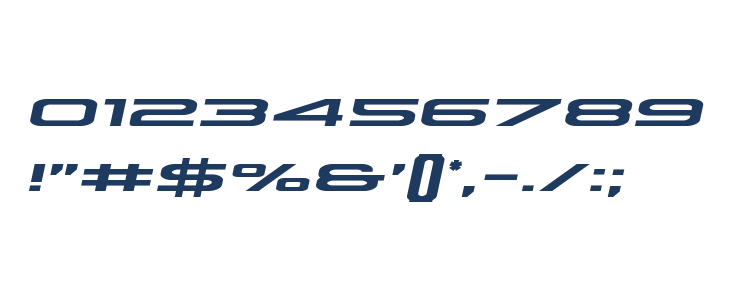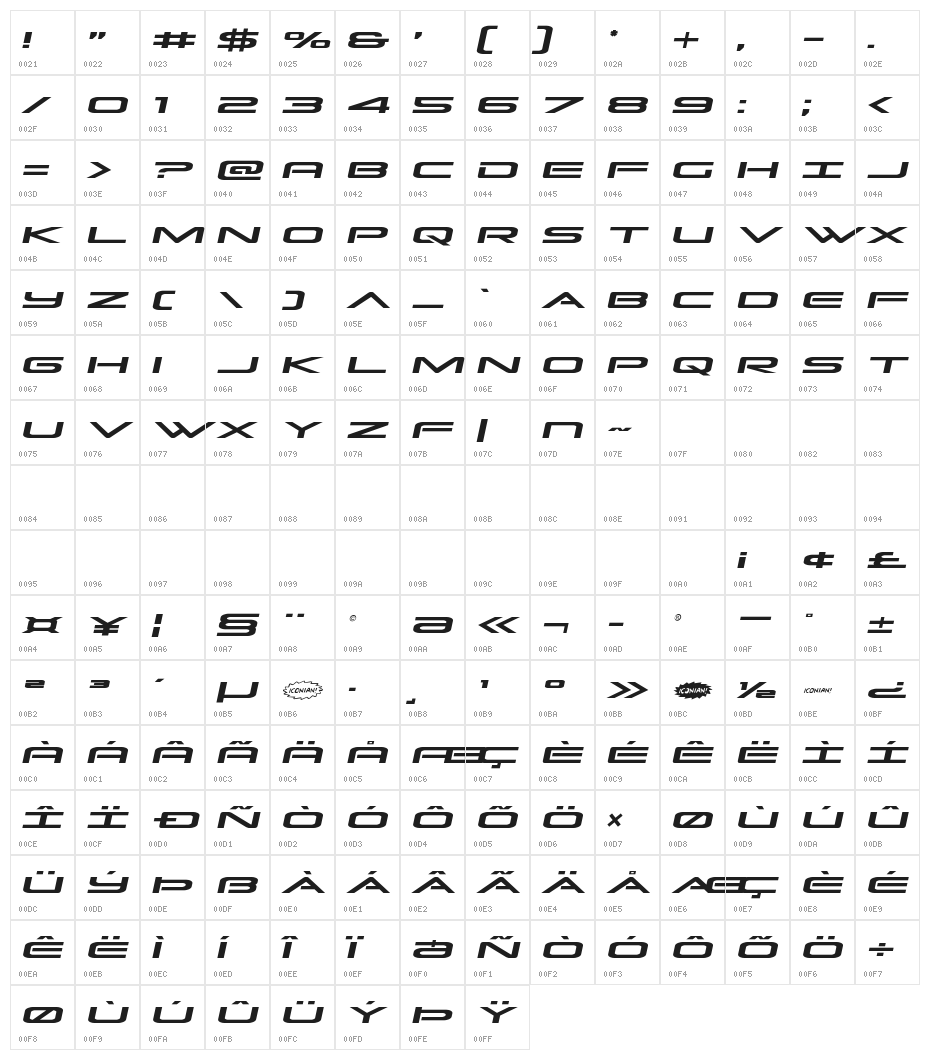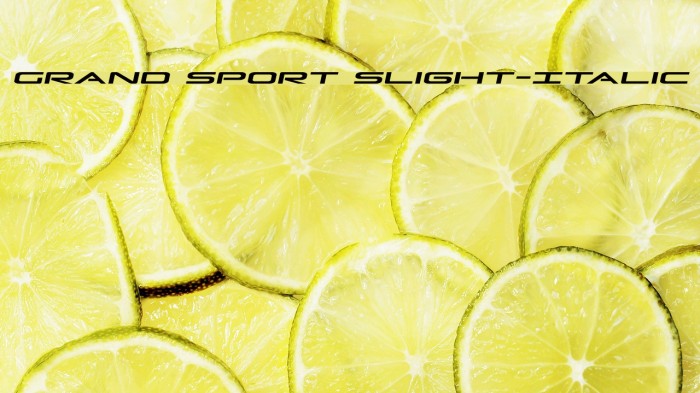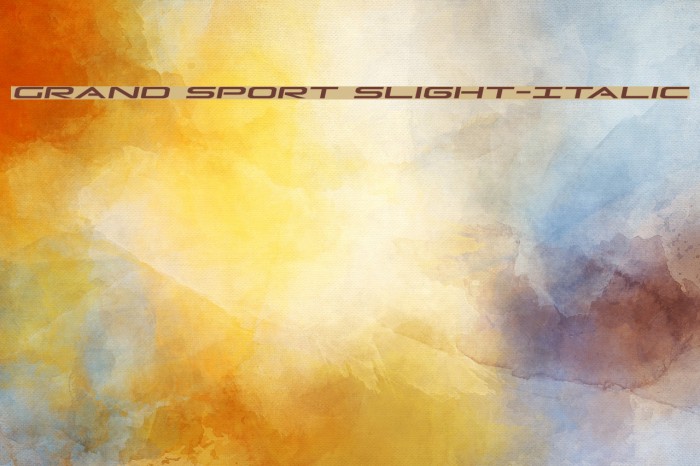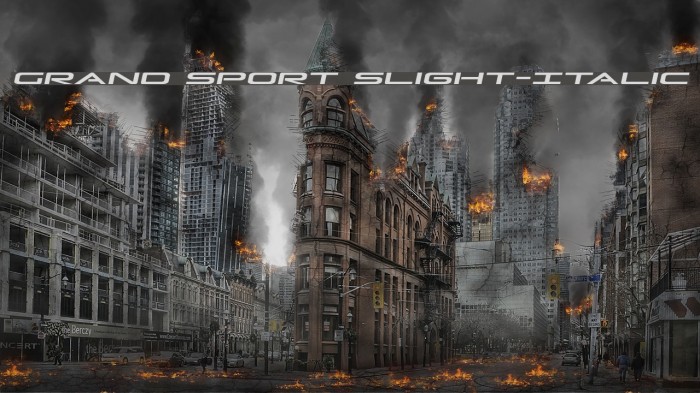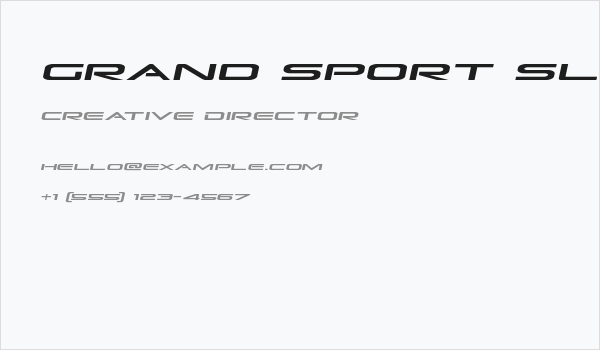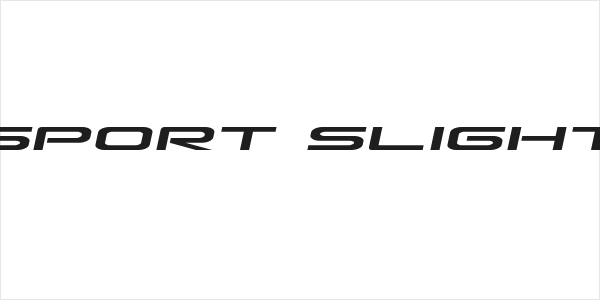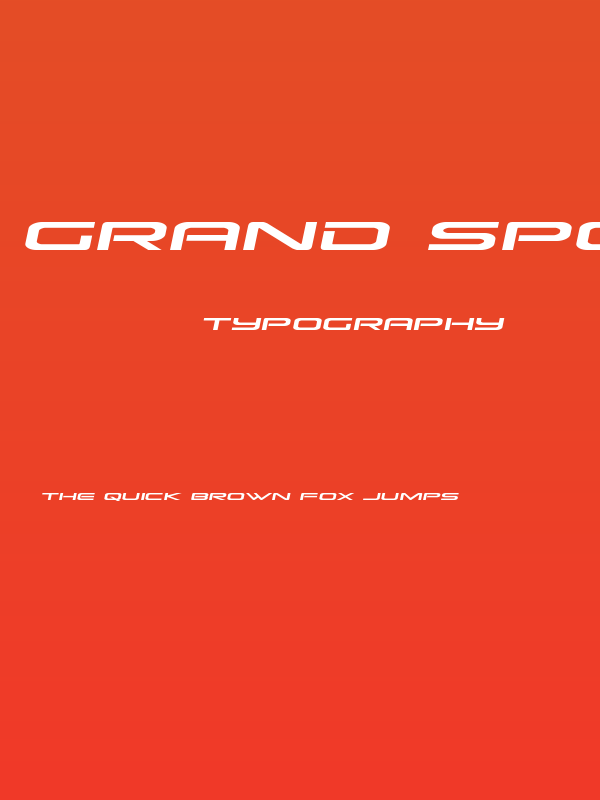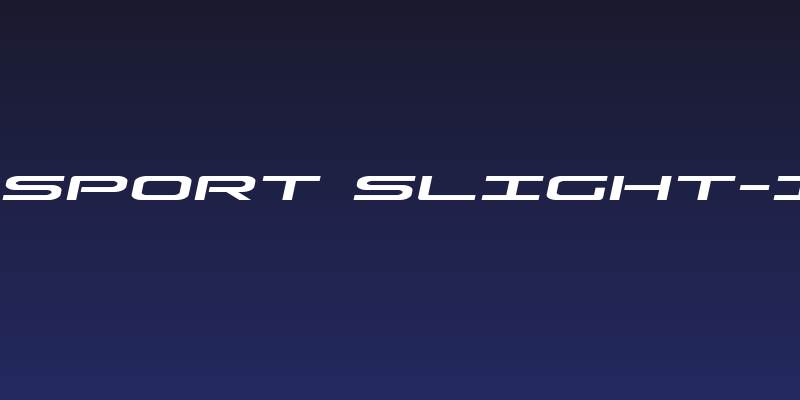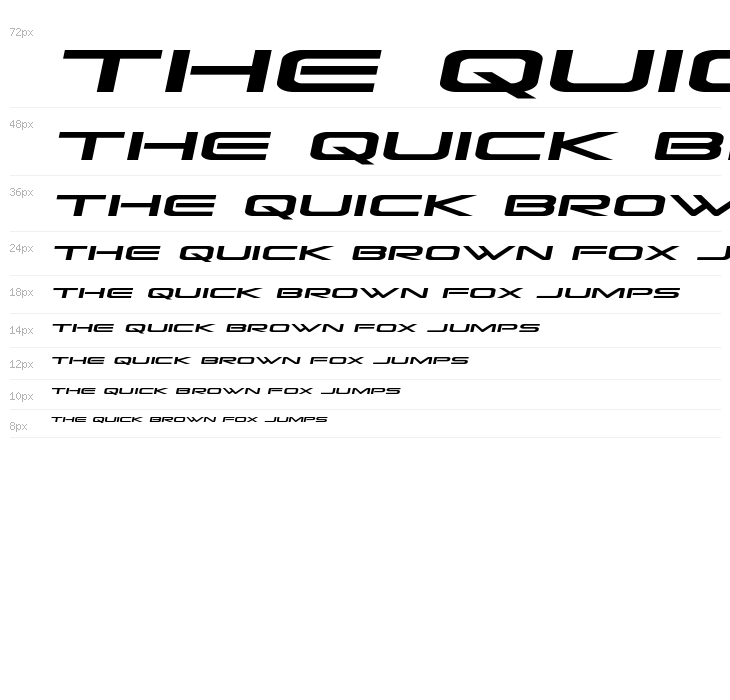
Grand Sport Slight-Italic Font
Grand Sport Slight-Italic Description
This font features a sleek, modern design with a slight italic slant, giving it a dynamic and forward-moving appearance. The characters are crafted with precision, showcasing a blend of sharp angles and smooth curves. The uppercase letters are bold and commanding, while the lowercase letters maintain a consistent style, ensuring readability. The numerals are distinct and align well with the overall aesthetic, making them suitable for various applications. Special characters are included, maintaining the font's cohesive look. The font's design suggests a sense of speed and innovation, making it ideal for projects that require a contemporary and energetic feel.
| Use Case | Logos, Headlines, Branding |
| Proposed Projects | Ideal for automotive branding, tech company logos, sports event materials, and modern advertising campaigns. |